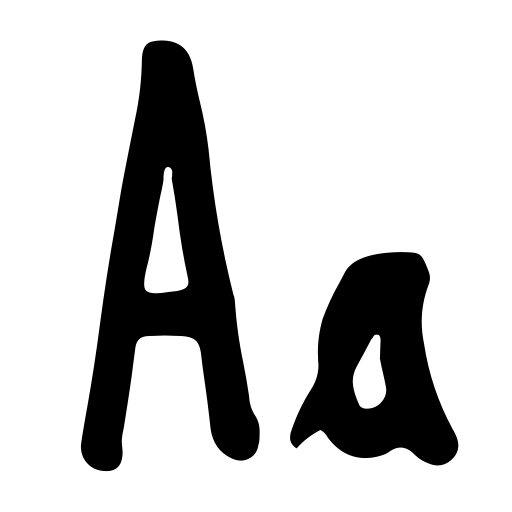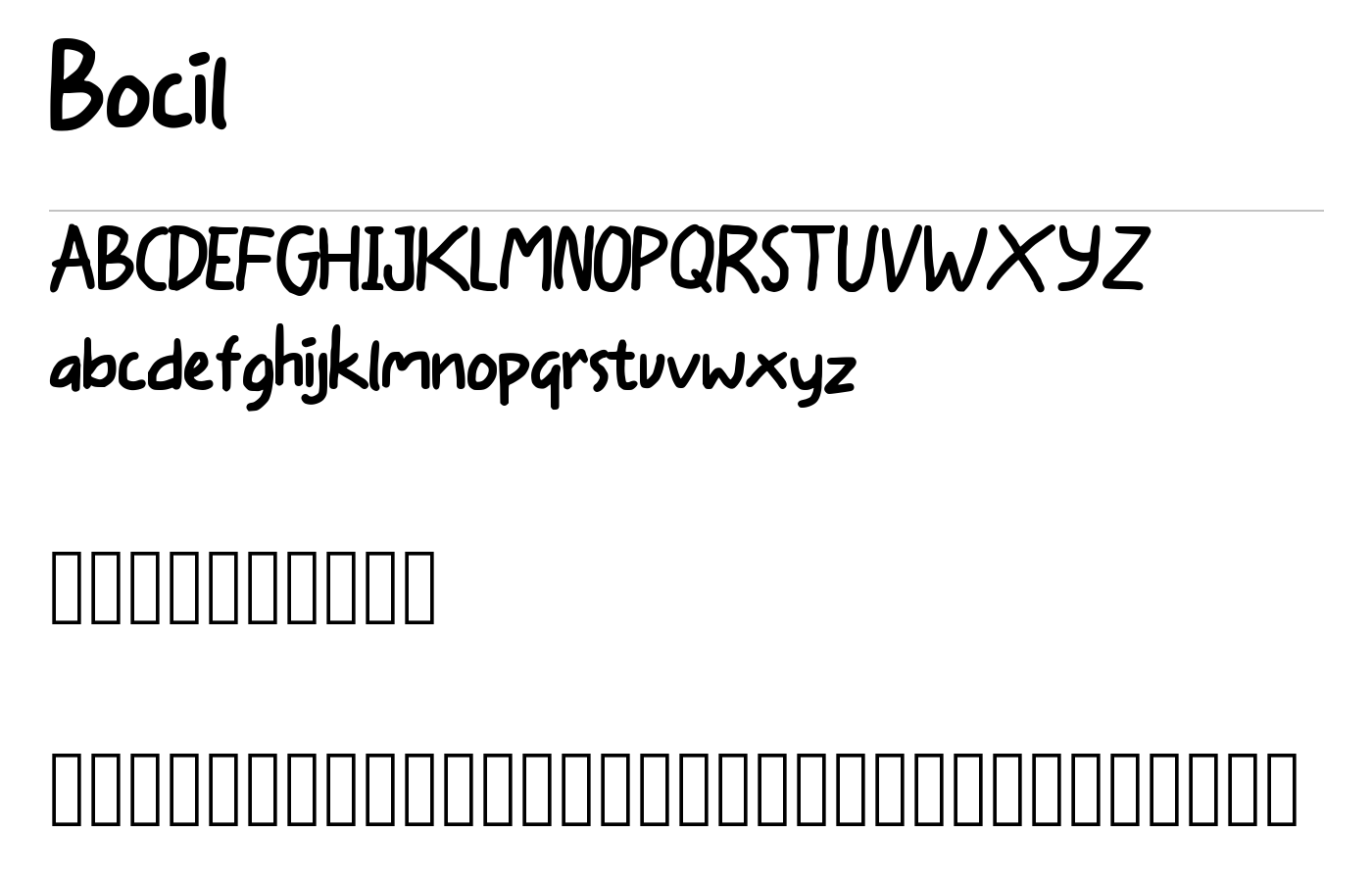
Bocil is a casual, playful sans serif font with a hand-drawn feel that brings warmth and friendliness to any design. Its irregular strokes and slightly uneven letterforms create a relaxed, approachable vibe, making it ideal for projects aimed at a youthful or informal audience. Perfect for logos, children’s books, posters, or social media graphics, Bocil adds personality and charm without sacrificing readability.
Bocil Font